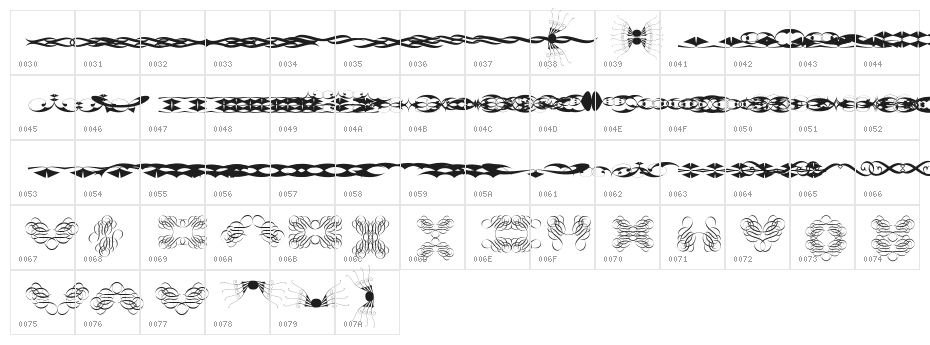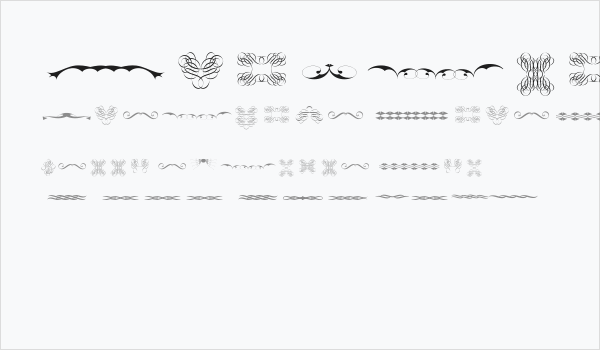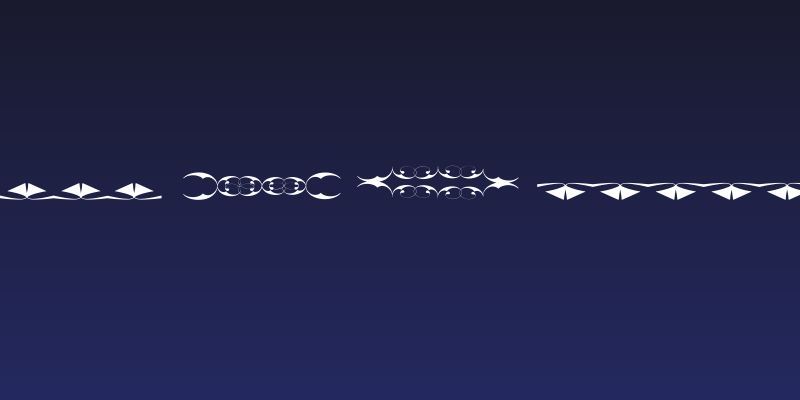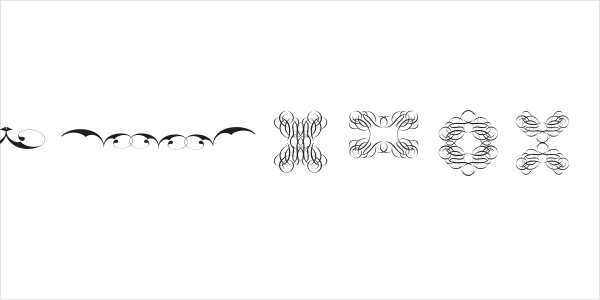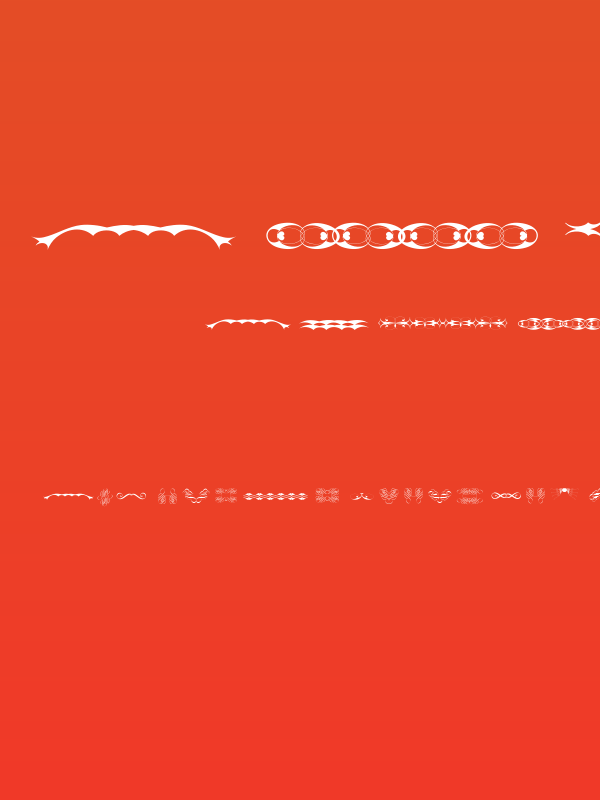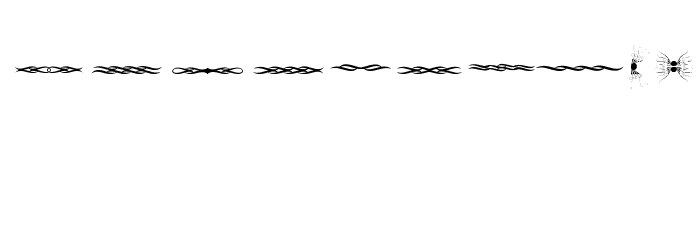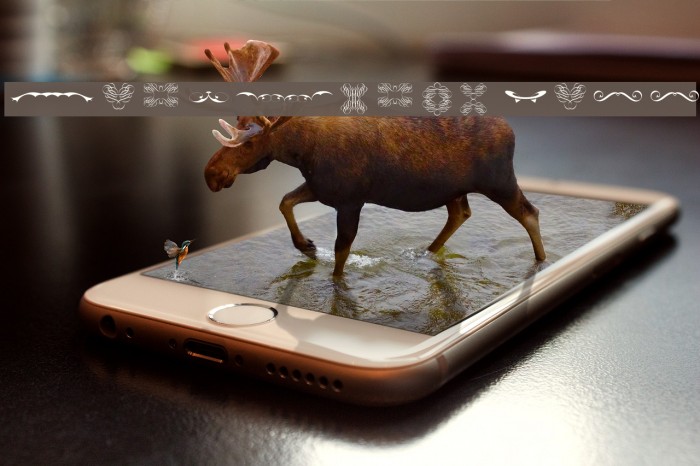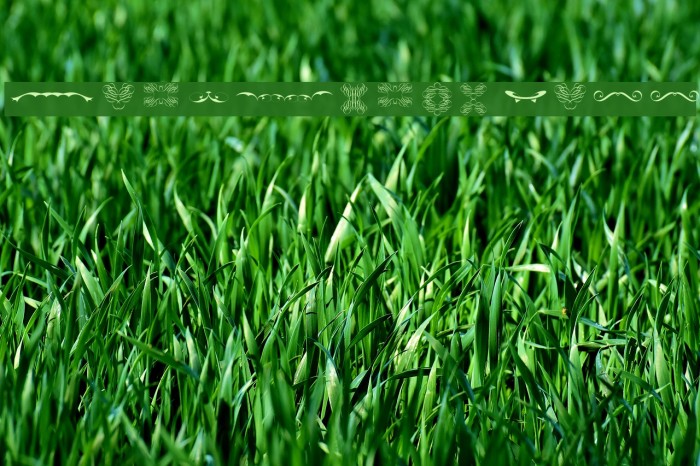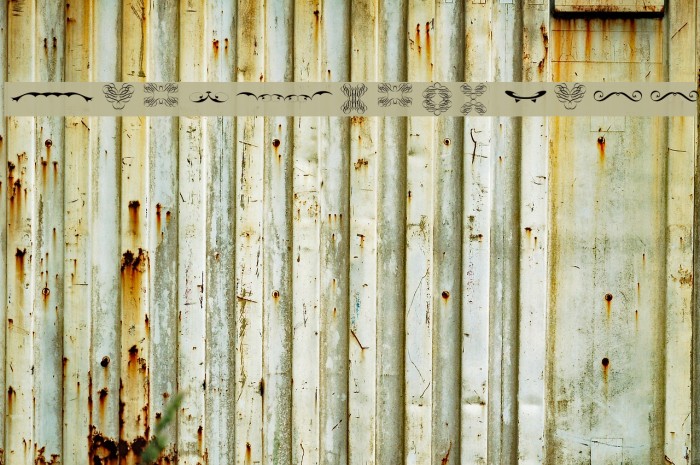
Tribalism Free Font
Tribalism Free Description
A decorative and ornamental font composed of intricate tribal-inspired borders, flourishes, and motifs, including symmetrical swirls and occasional insect illustrations. The glyphs are highly stylized and abstract, focusing on embellishment rather than legibility.
| Overall Style | Decorative, Tribal, Ornamental |
| Use Case | Borders, embellishments, decorative accents |
| Proposed Projects | Invitations, certificates, decorative borders, tattoo designs, themed posters. |